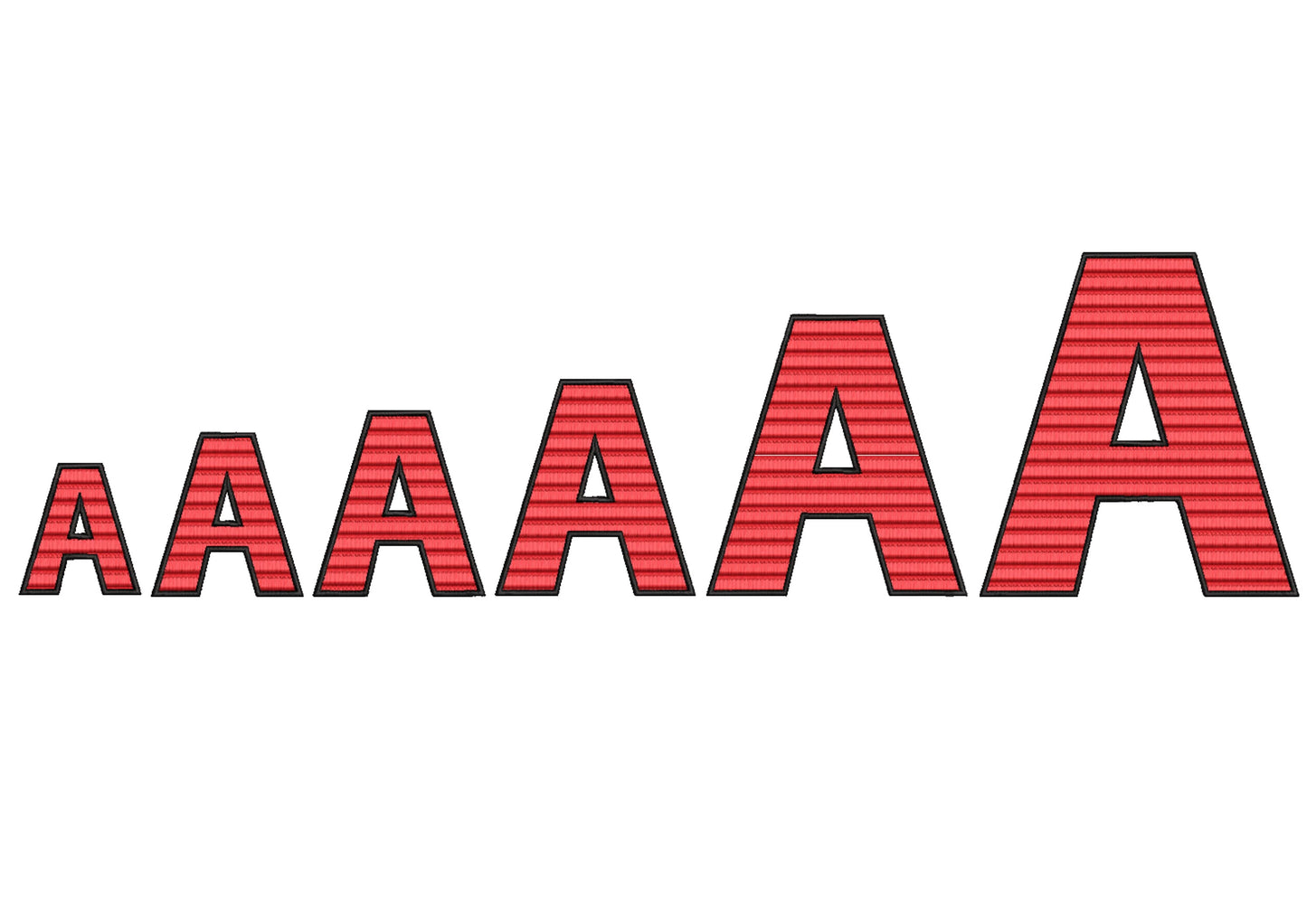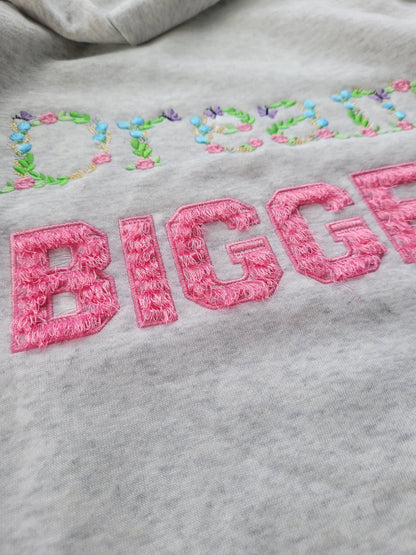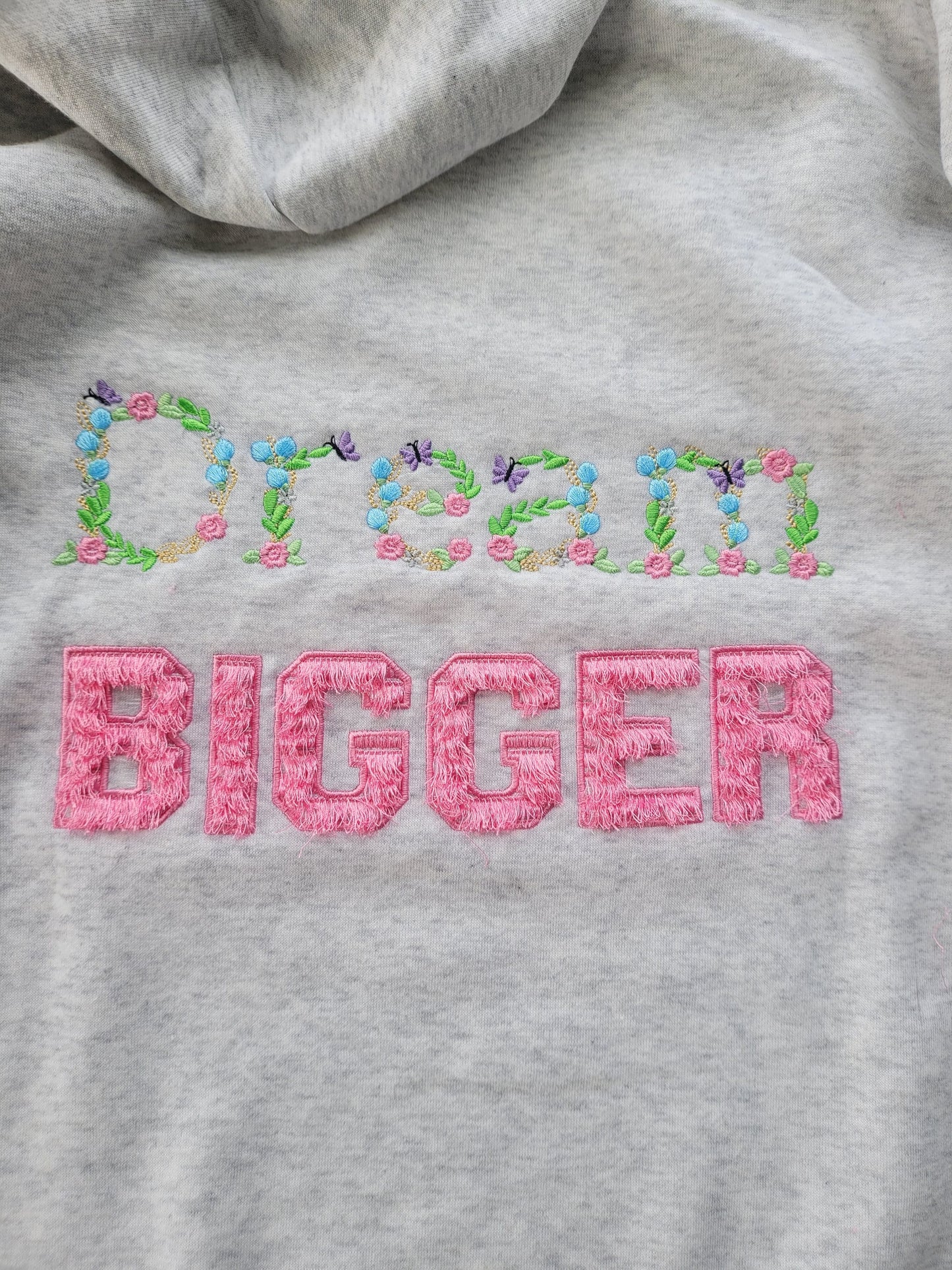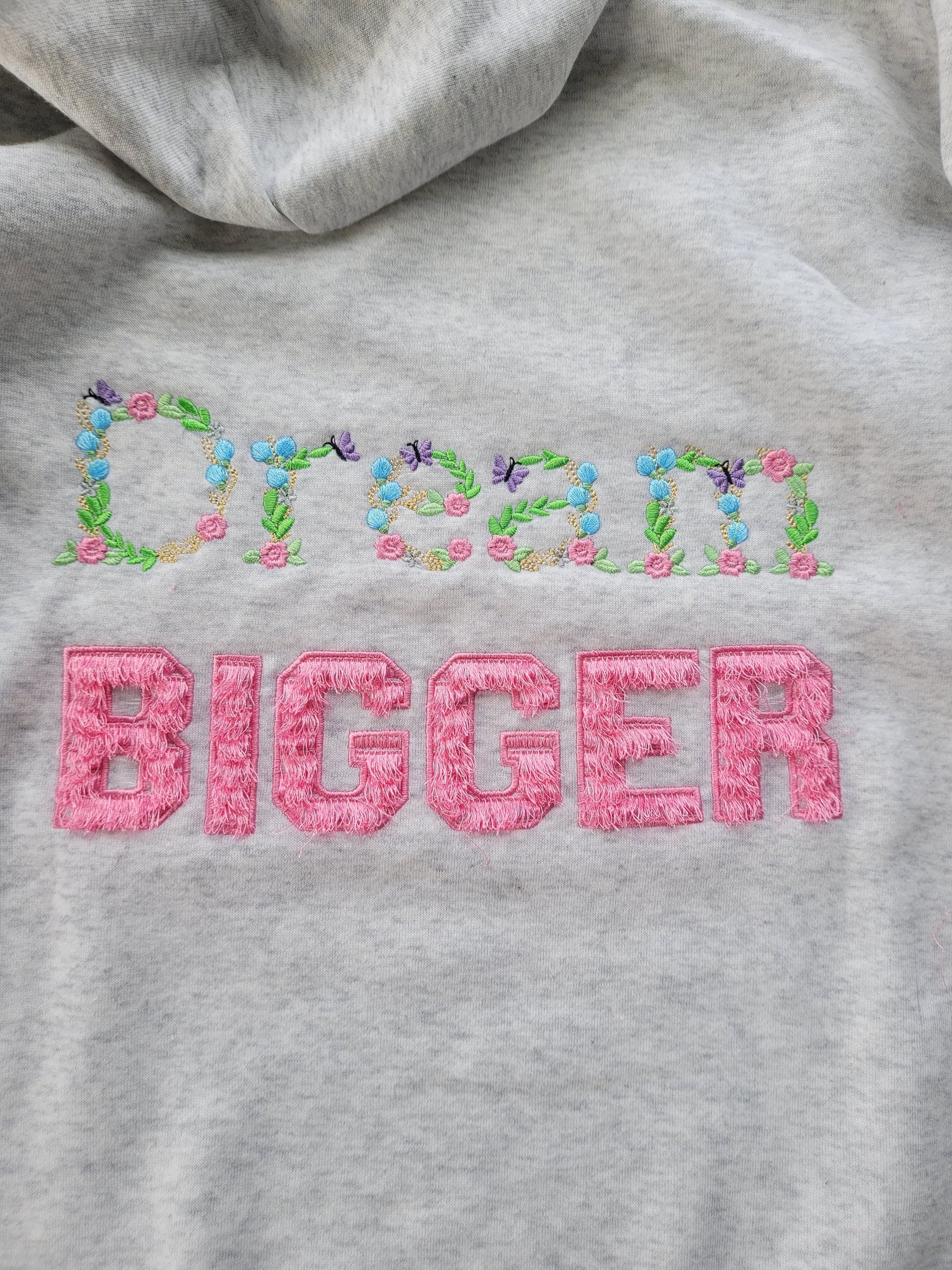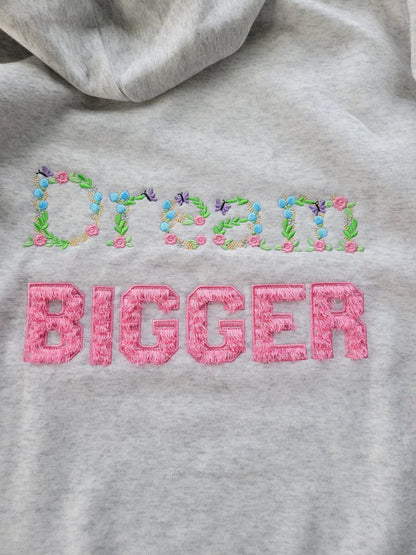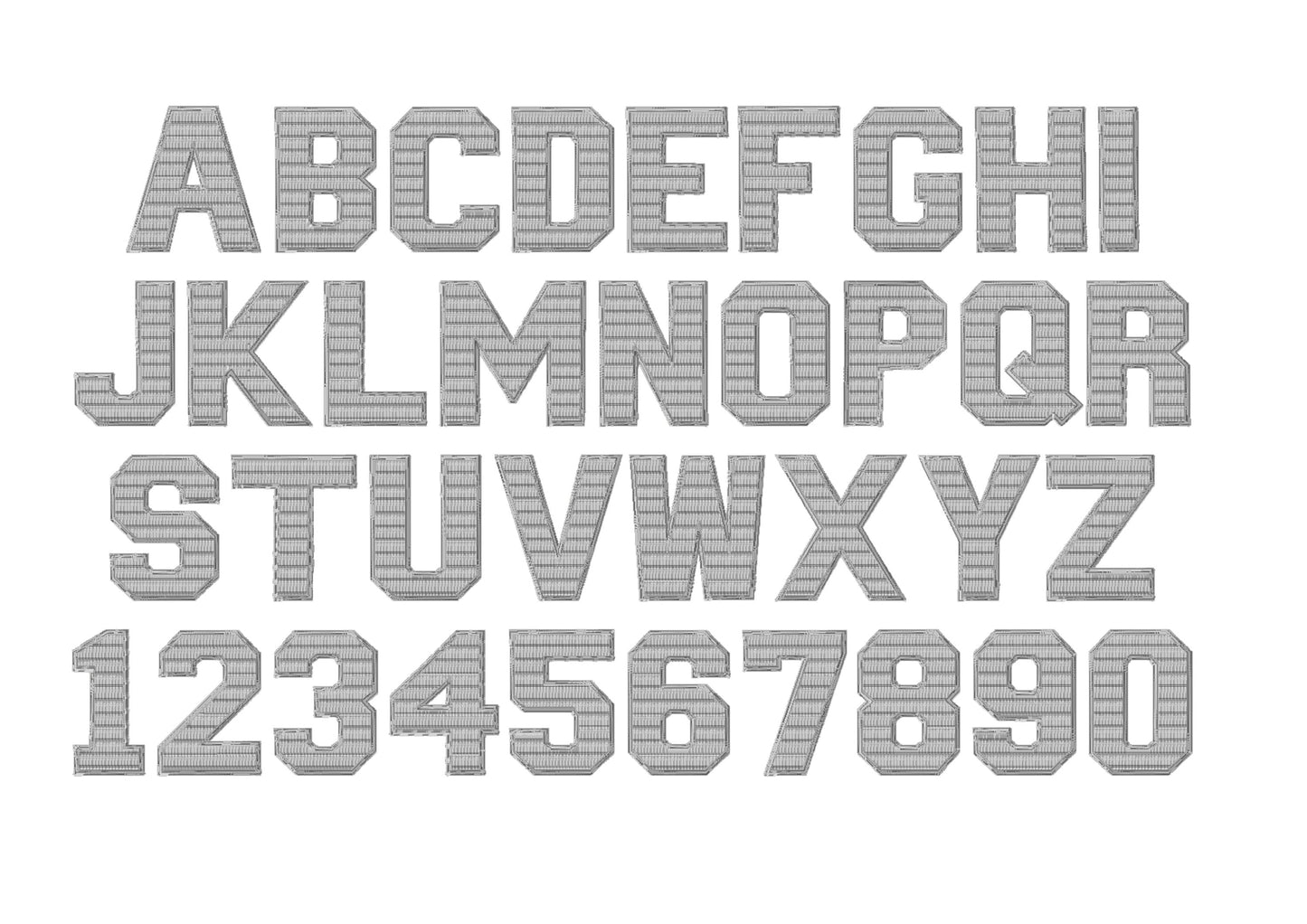
Or click to open the linkA fluffy fringed athletic block font with chenille-style layers. Made for letterman-style sweatshirts, jackets, pillows and team gifts.
Uppercase letters A to Z, numbers 0 to 9 and a few signs, including &, question mark and slash. Six sizes: 2.5, 3, 3.5, 4, 5 and 6 inches. Stitched like applique; a holding seam keeps the fringe in place, so it is safe to wash.